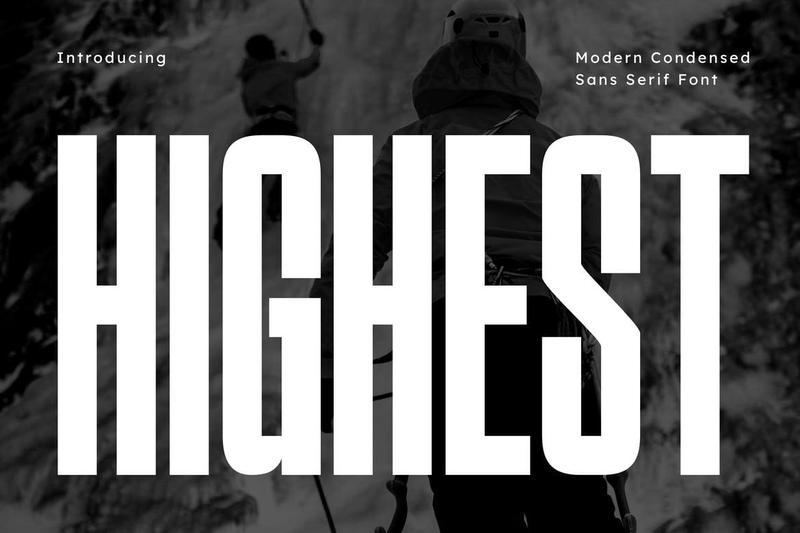
**Highest Modern Condensed Sans Serif Font**
**Highest** is a bold, high-impact, and modern condensed sans serif font, meticulously engineered to bring a commanding structural presence, immense editorial weight, and premium geometric precision to contemporary display layouts. Built with a towering vertical profile, compact horizontal tracking, and sharp industrial cuts, Highest introduces a professional adventure, extreme outdoor, and high-end lifestyle aesthetic that projects supreme visual authority and unyielding resilience.
This font family is the definitive choice for creative directors, digital publishers, and agency brand designers looking to implement a space-efficient, heavyweight typography identity for prominent text hierarchies. Whether you are developing tech enterprise logotypes, modern outdoor expedition branding, high-altitude sports documentaries, cinematic movie titles, or prominent digital live-stream headers, Highest stands out with exceptional legibility and striking geometric confidence.
**Main Features:**
– Modern Condensed Sans Structure: Optimized with a narrow horizontal profile for dense, space-saving, and high-impact title compositions.
– Towering Vertical Proportions: Elongated heights crafted to secure immediate audience attention and an elegant editorial feel.
– Multilingual Support: Fully loaded and prepared for cross-platform international marketing campaigns.
– Rugged & Premium Aesthetic: Clean linear strokes with a powerful finish, perfect for cutting-edge lifestyle branding and digital media networks.
**Best Used For:**
High-end editorial layout design, outdoor adventure branding, extreme sports promotions, cinematic title sequences, corporate enterprise logotypes, technology infrastructure headers, and large-scale web splash banners.